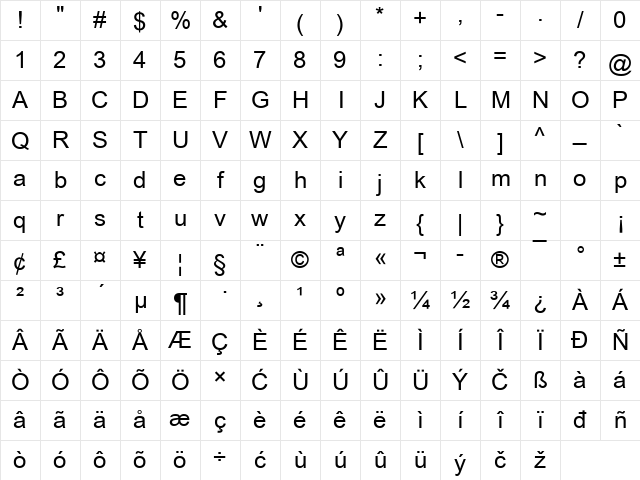
Arial YU Regular
Complete Arial YU Regular glyph index. Displaying only characters natively supported by Arial YU Regular font.
Design Context for Arial YU
Arial YU is a composed and adaptable typeface that performs quietly and consistently across a wide range of design contexts.
Pro Tip: Use Arial YU in both headline and body roles to test its range before committing to a single application.